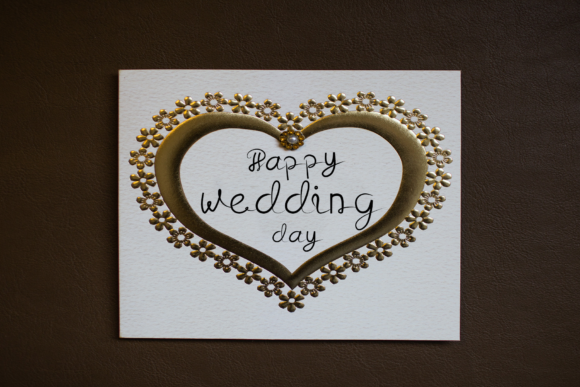
About Jersey Font
Jersey is a sweet, delicate and unique handwritten font. Fall in love with its incredibly fitting style and use it to create lovely designs!